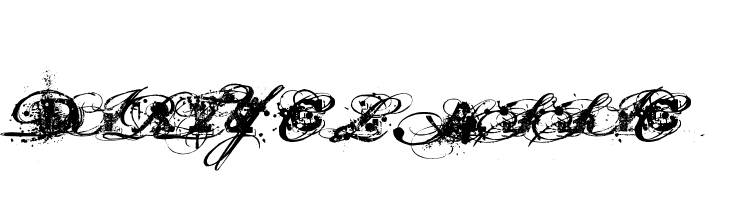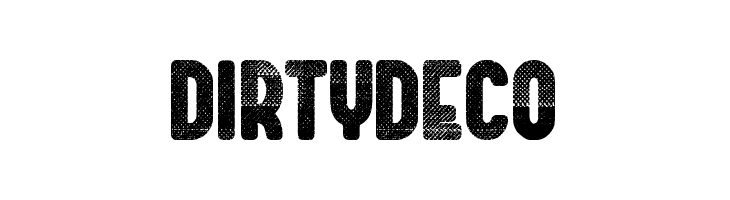
A dynamic graffiti-style font with sharp, angular lines and an urban edge.
A rugged, hand-drawn font with a distressed, graffiti-like appearance.
A bold, distressed font with a rugged, hand-crafted appearance.
A bold, distressed font with a rugged, vintage appearance.
A bold, textured font with a hand-drawn, brush-like appearance.
A grungy, distressed script font with artistic splatters and swirls.